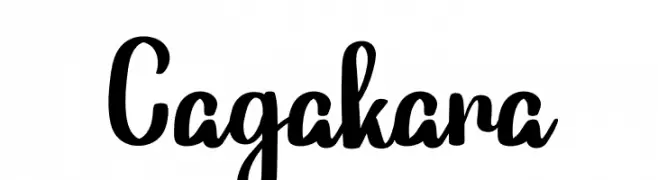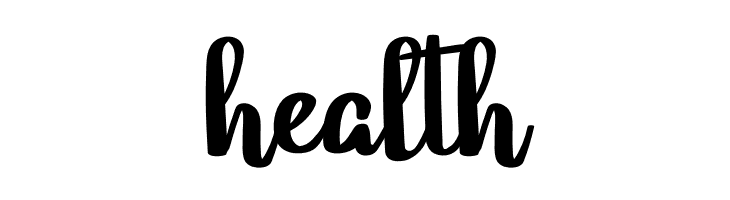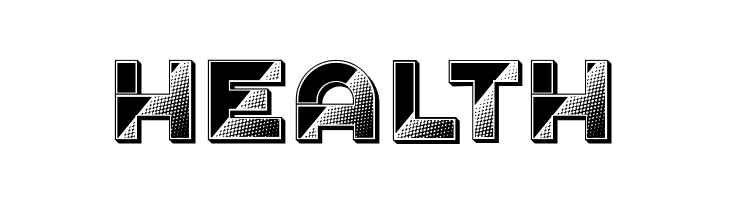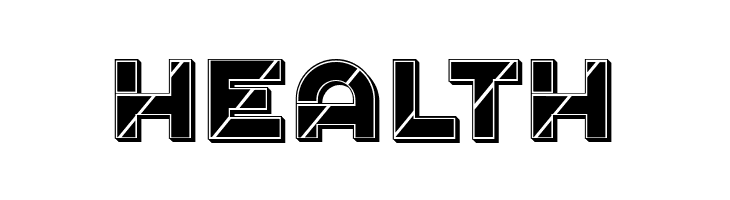
A bold, textured, and playful font with a hand-drawn aesthetic.
A dynamic and fluid script font with elegant, flowing letterforms.
A cursive, handwritten-style font with elegant, flowing strokes.
A playful, bold font with a hand-drawn, rounded style.
A playful, bold font with rounded edges and a whimsical style.
A bold, playful script font with a handwritten style.
A bold, decorative font with a 3D effect and dotted textures.
A bold, geometric font with a filled, three-dimensional look and retro-futuristic style.
A bold, textured brush font with a dynamic, hand-painted style.
A modern, sleek font with tall, narrow characters and minimal contrast.